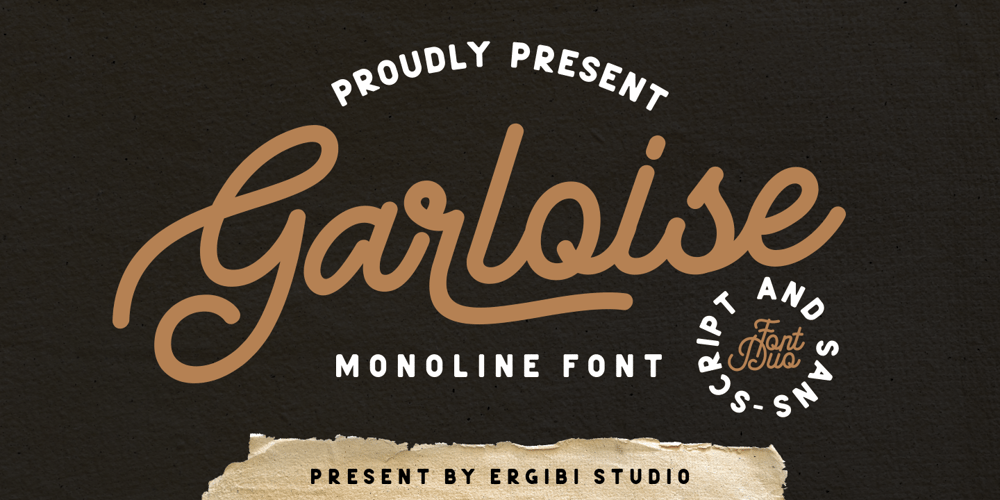
Garloise
Garloise font
Garloise Font Family was designed by Riyadh Rahman and published by Ergibi Studio. Garloise contains 2 styles and family package options. Garloise of script and sans will match perfectly. This font is perfect for logotype, apparel, branding, packaging, advertising and more. It comes with uppercase, lowercase, punctuation, symbols, numerals, stylistic alternates, ligatures, and several different swashes are included as well.Includes multi-lingual support for; Afrikaans, Albanian, Catalan, Danish, Dutch, English, Icelandic, Italian, Spanish, Portuguese, German, Swedish, Norwegian, Polish, Indonesian, Zulu.Hope you enjoy with our font!Big Thaks, Ergibi Studio